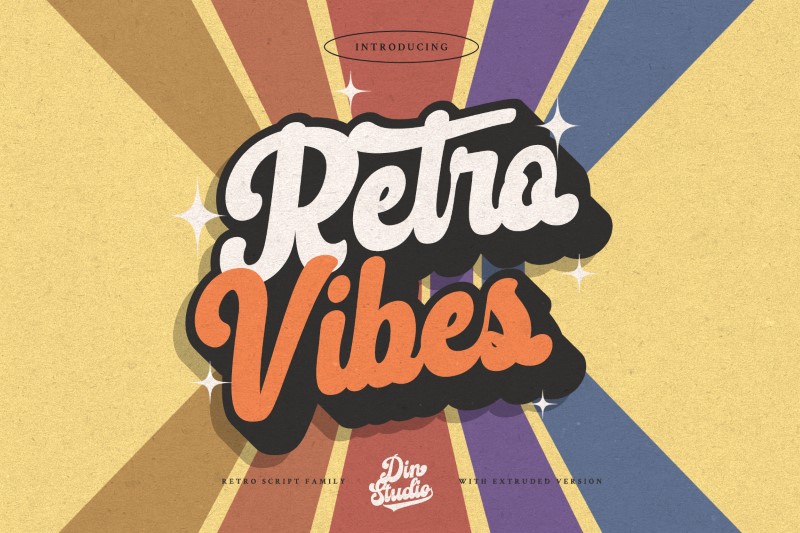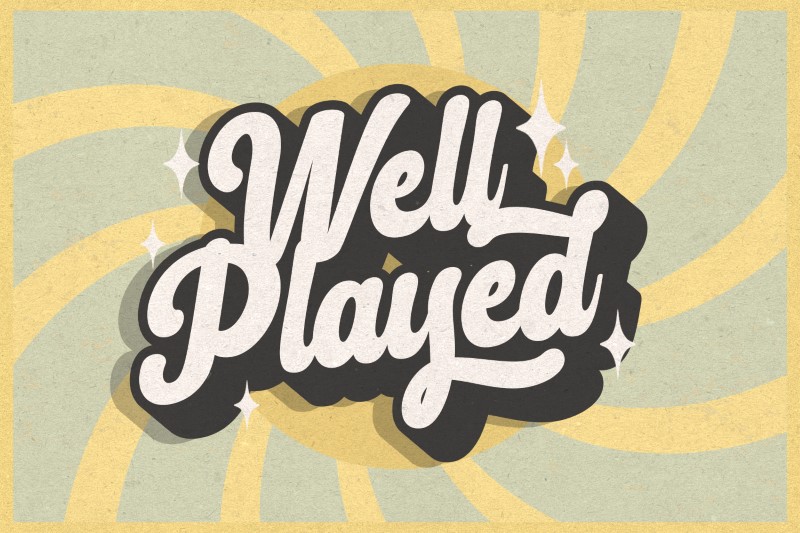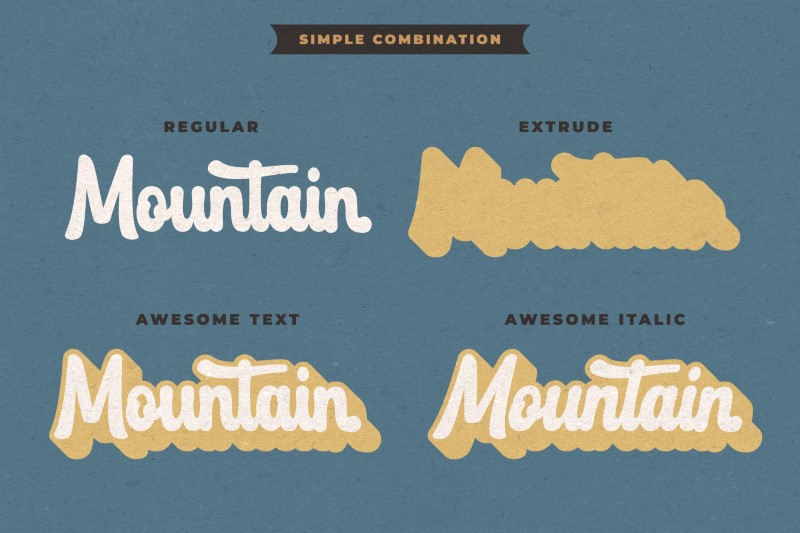
Get ready to transcend to a world of magic, laughter, and butterflies. Your projects will spark delight and engage everyone who sees it! Wait no more, we will give you the best choice. A Script Font, Retro Vibes, is a bubble-styled, handcrafted font inspired by designs and illustrations from the 1960s. It’s a fine-looking font, brought to life by a splendidly scratchy halftone gradient that aims to bring out retro vibes. This font comes in regular and italic versions. The font makes your logos, business cards, and other projects a unique vintage look.
Features include:
- Stylish Sets
- Swashes
Retro Vibes fits for any design projects, such as posters, logos, book covers, album covers, quotes, headings, printed products, merchandise, social media, etc. Find out more ways to use this font by taking a look at the font preview.